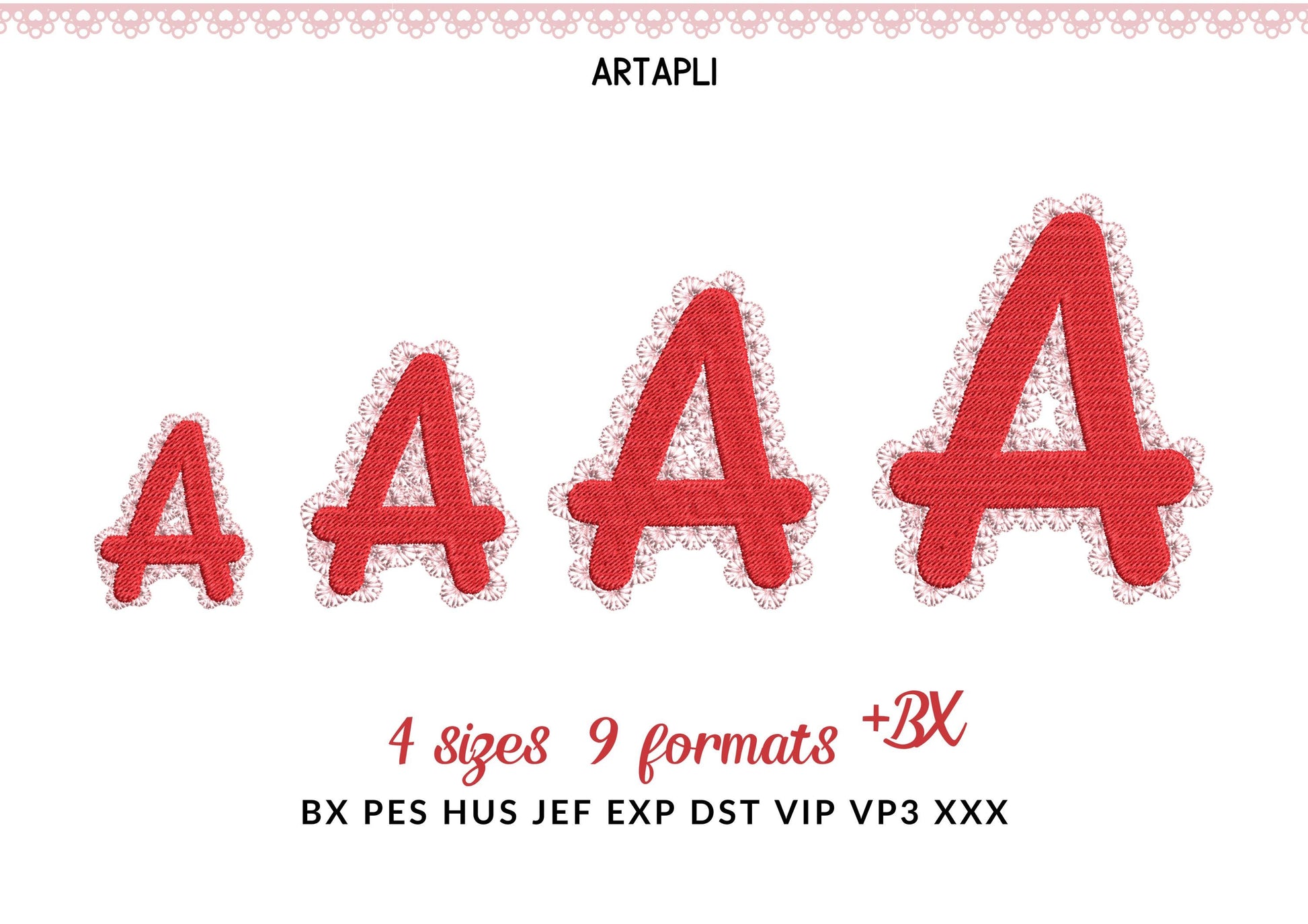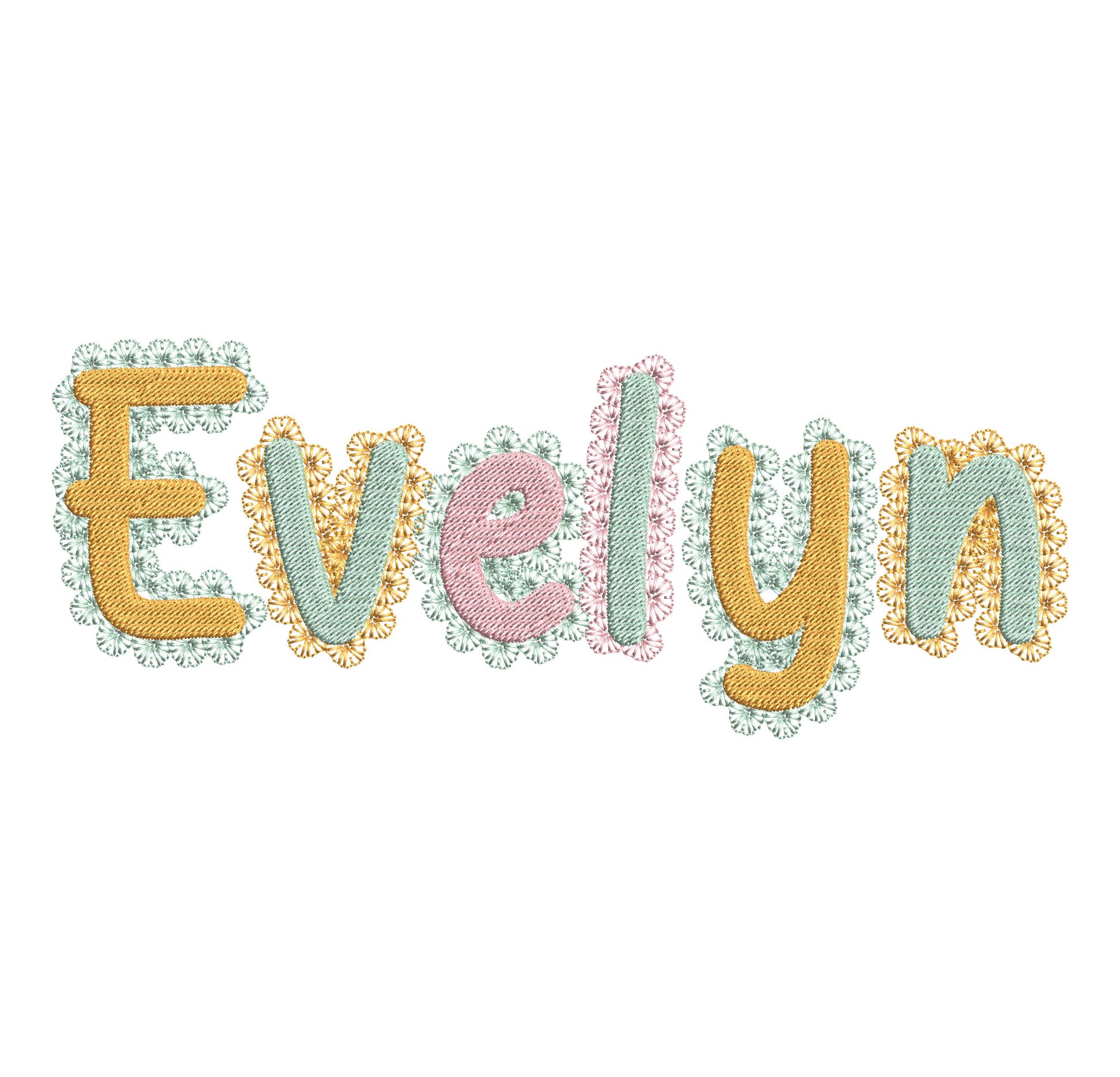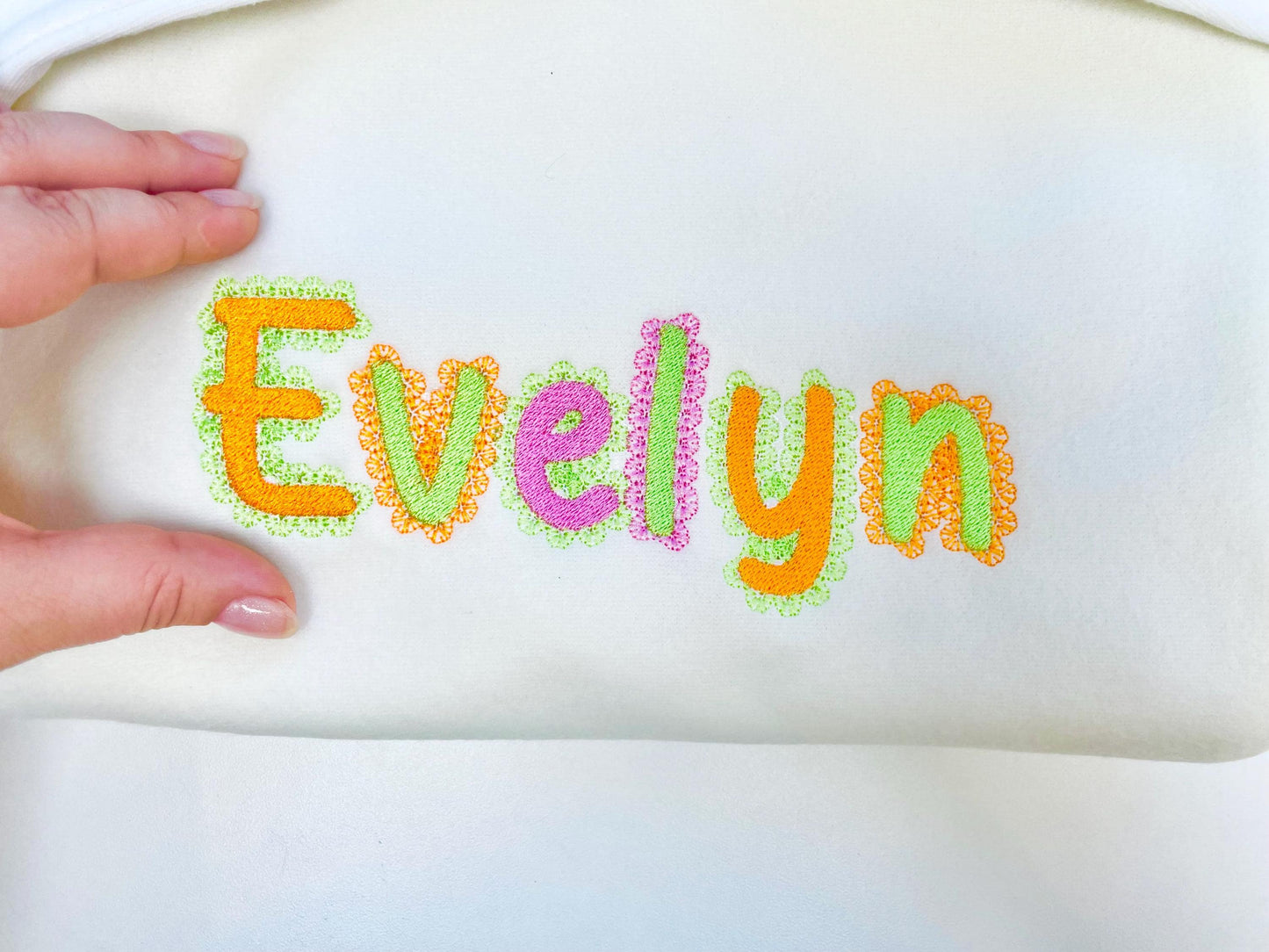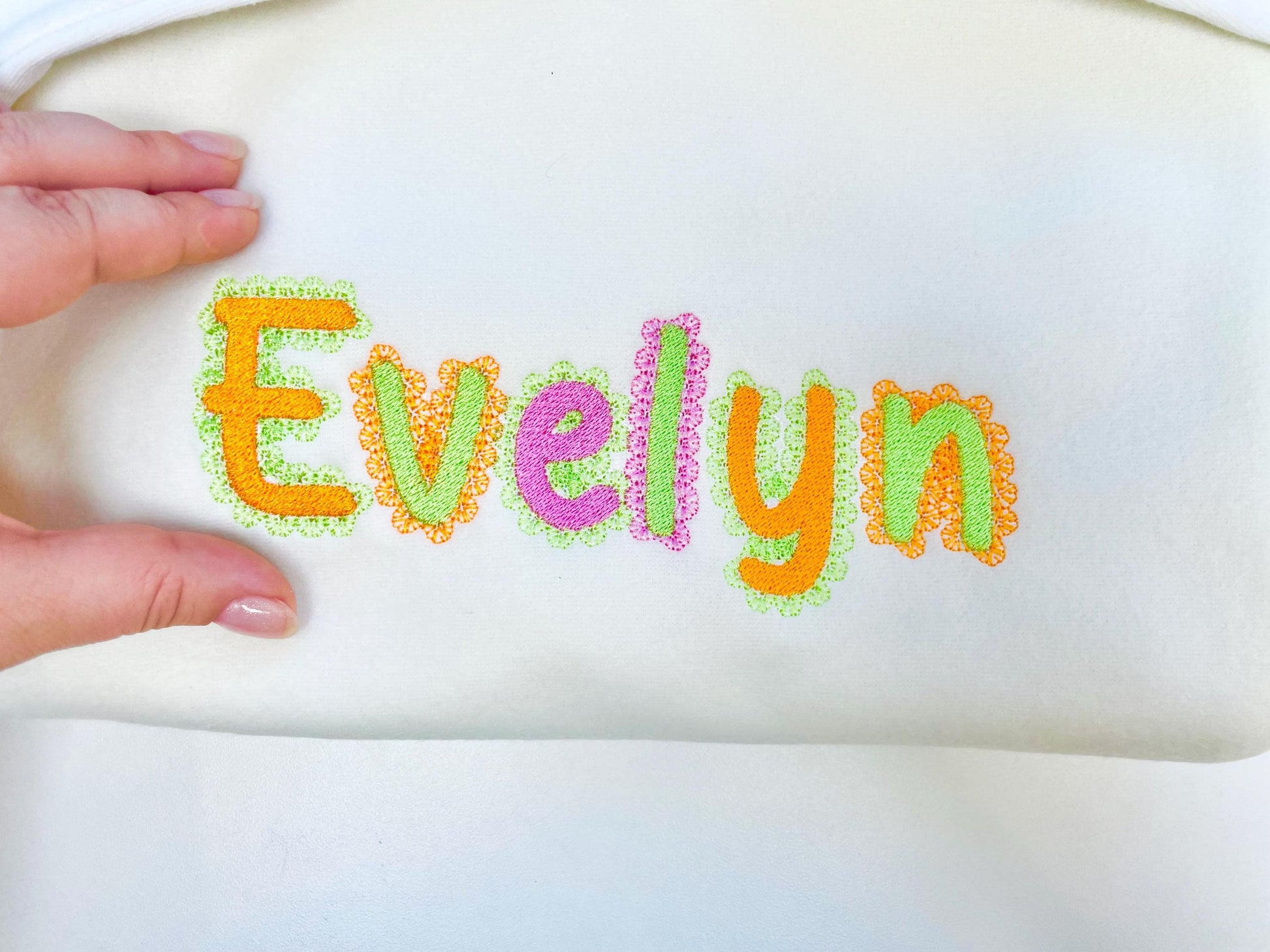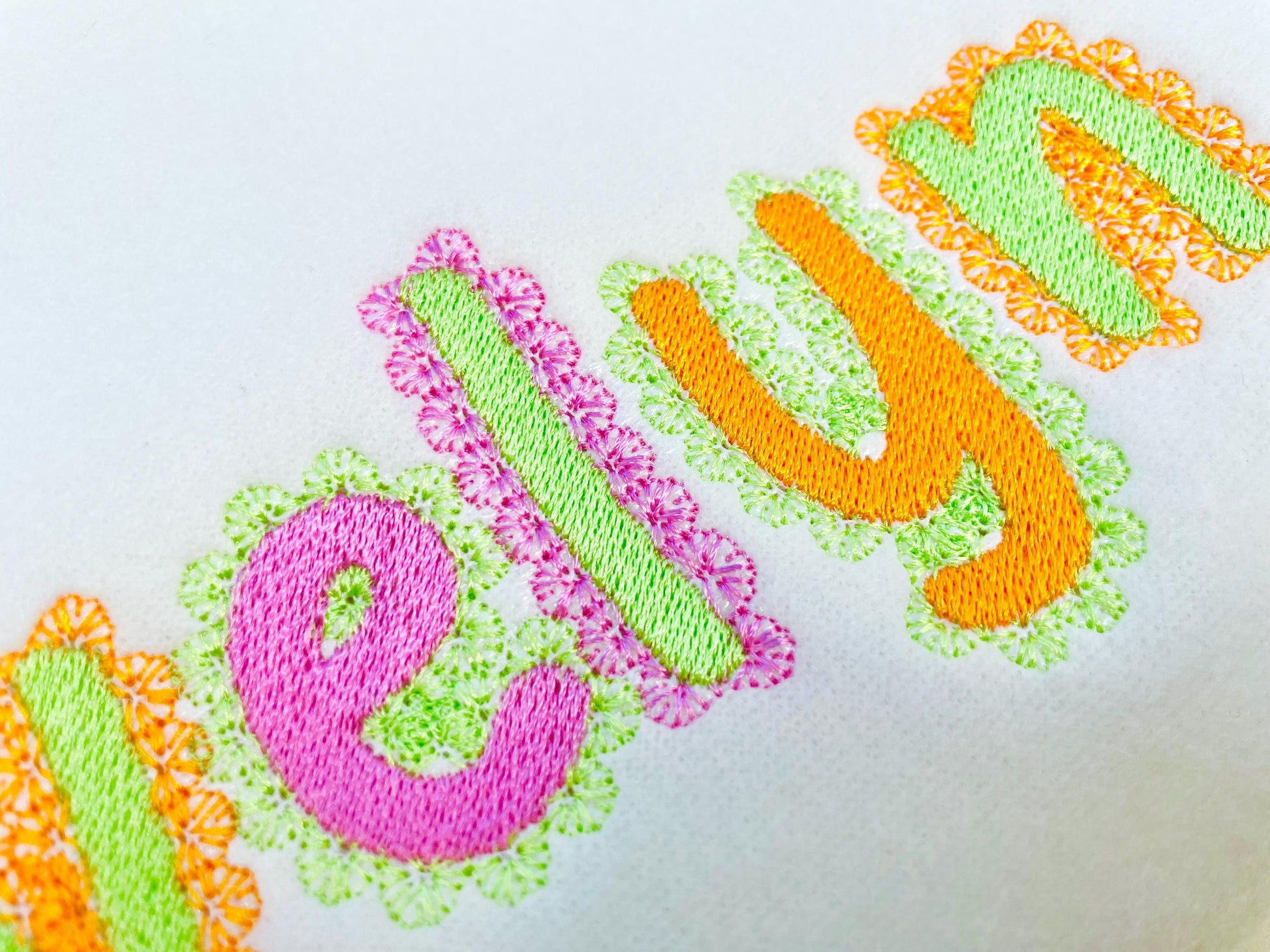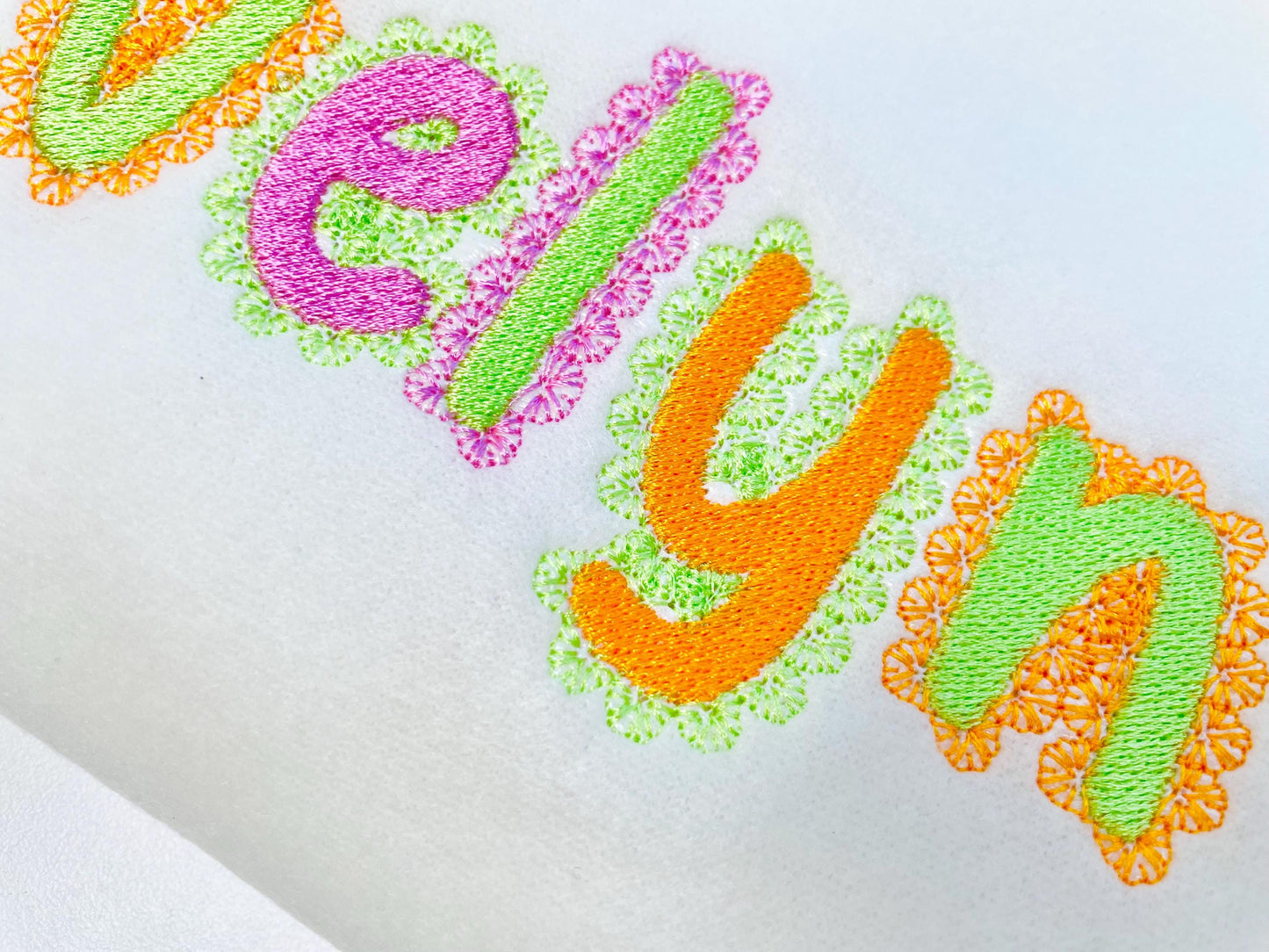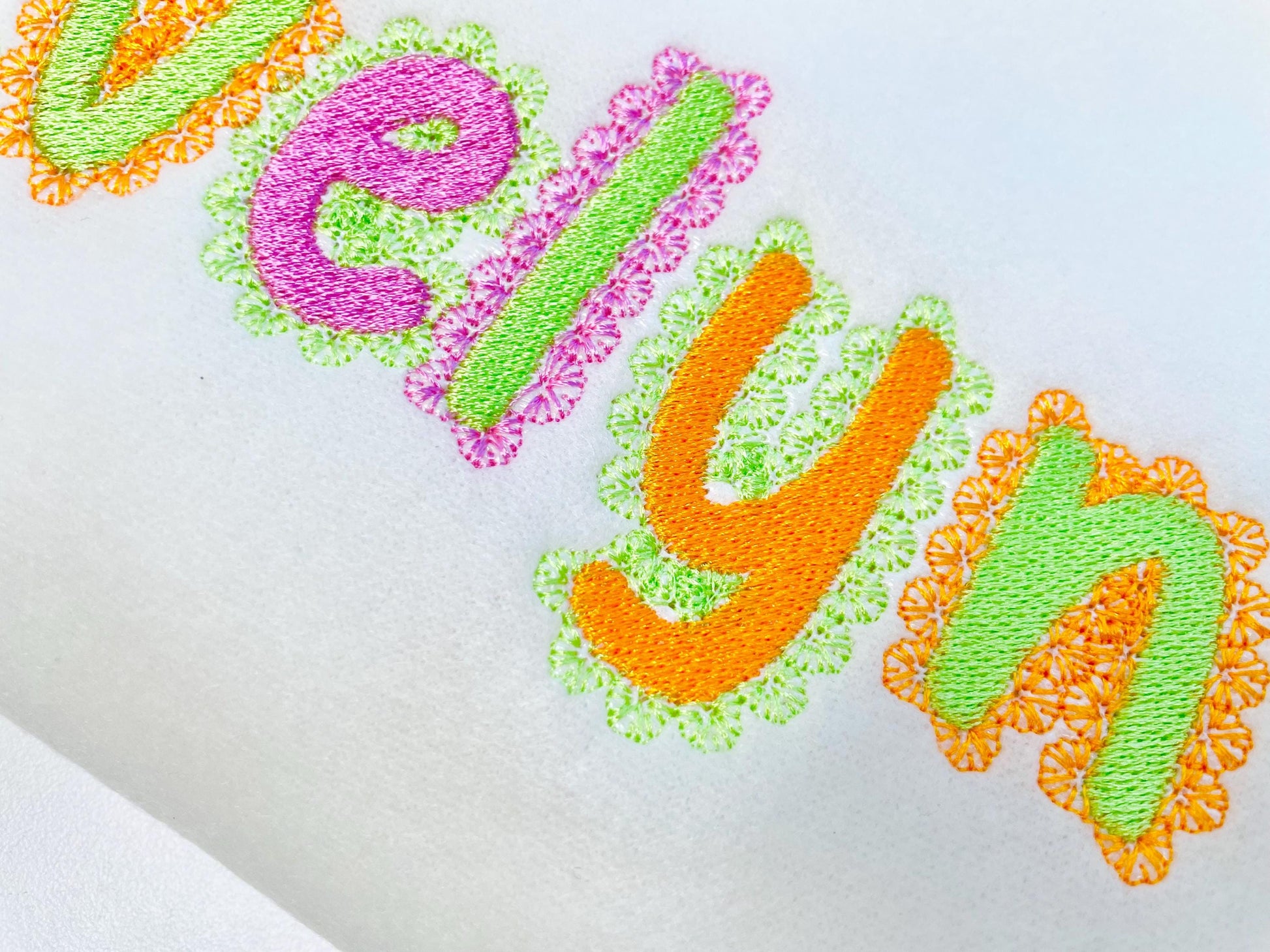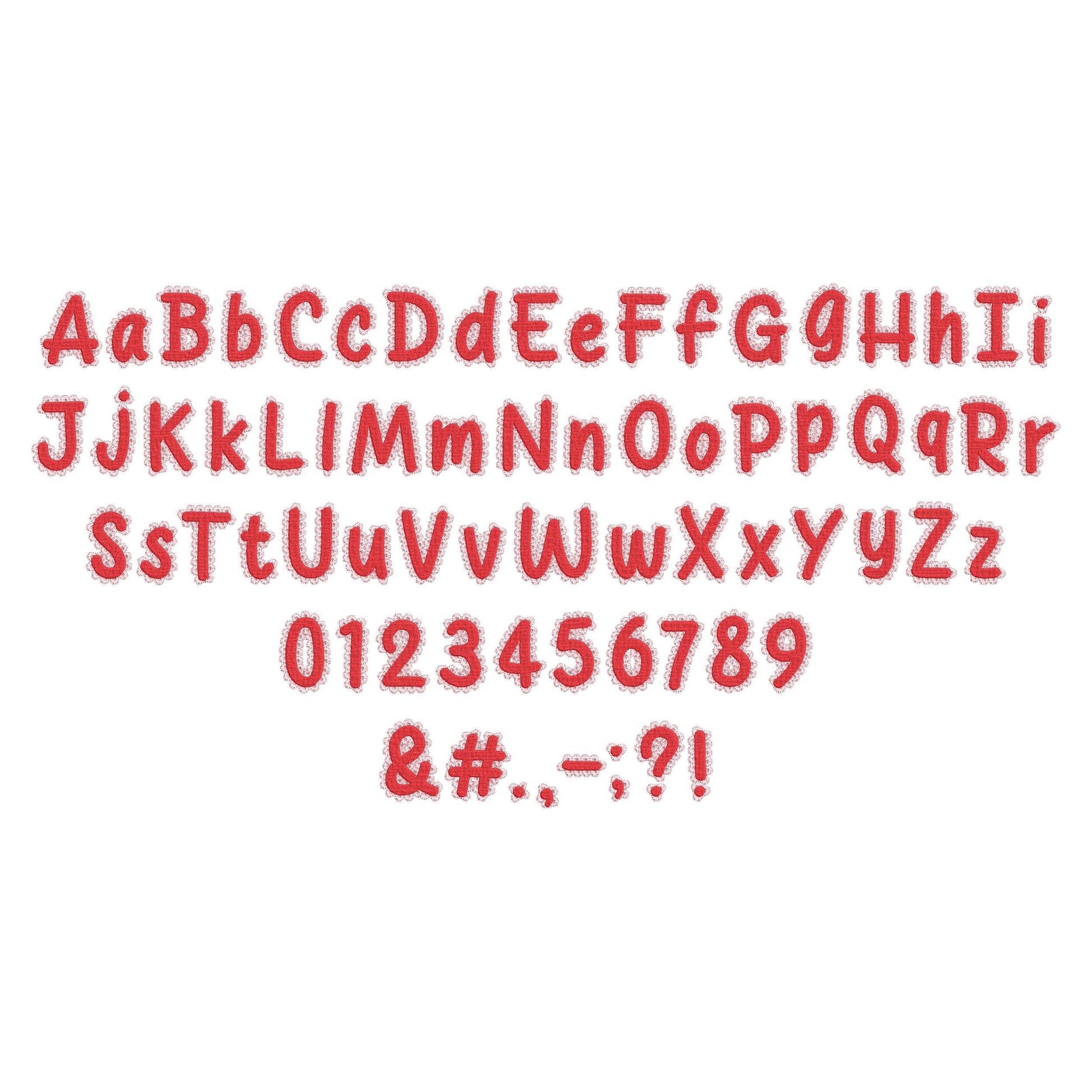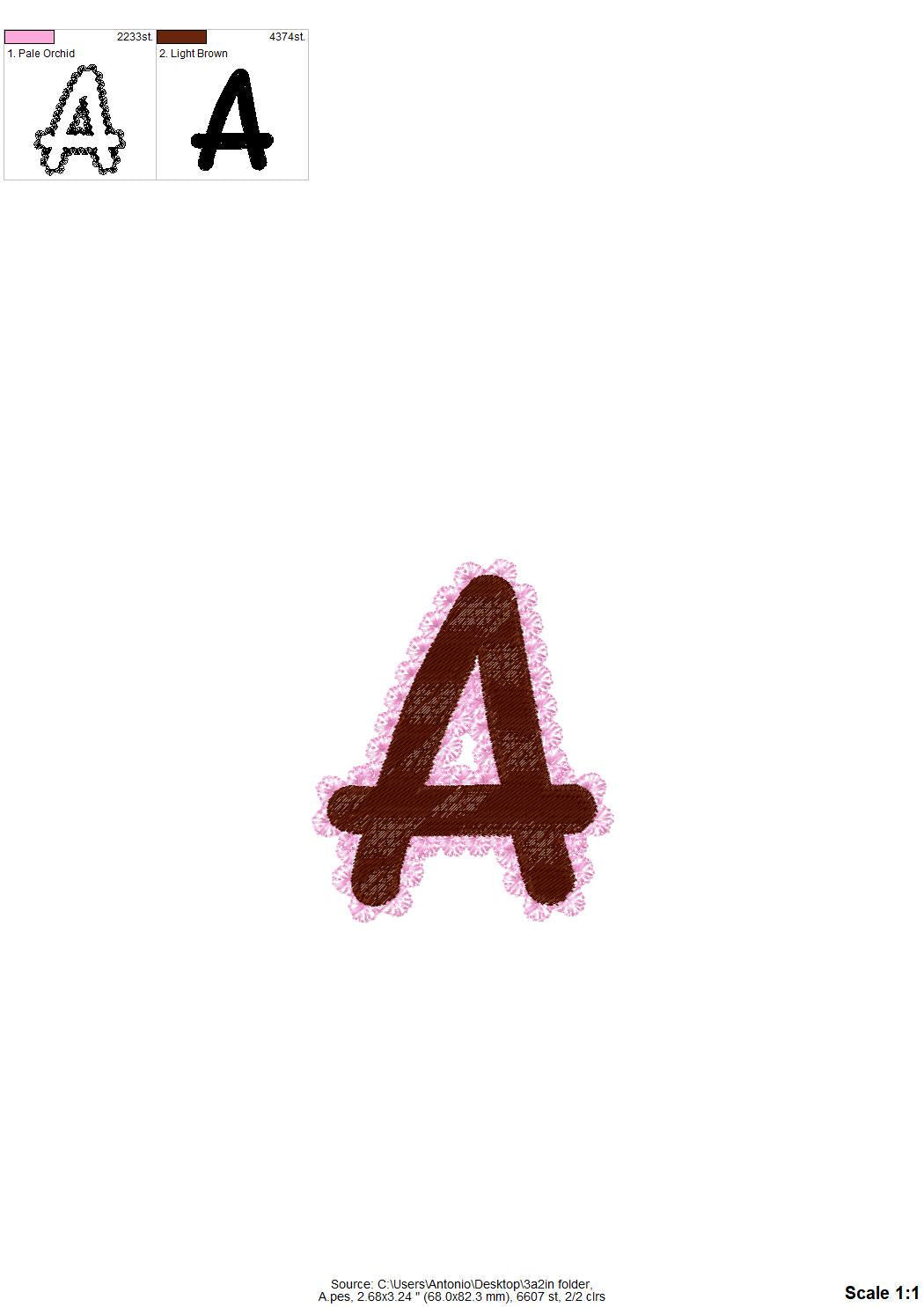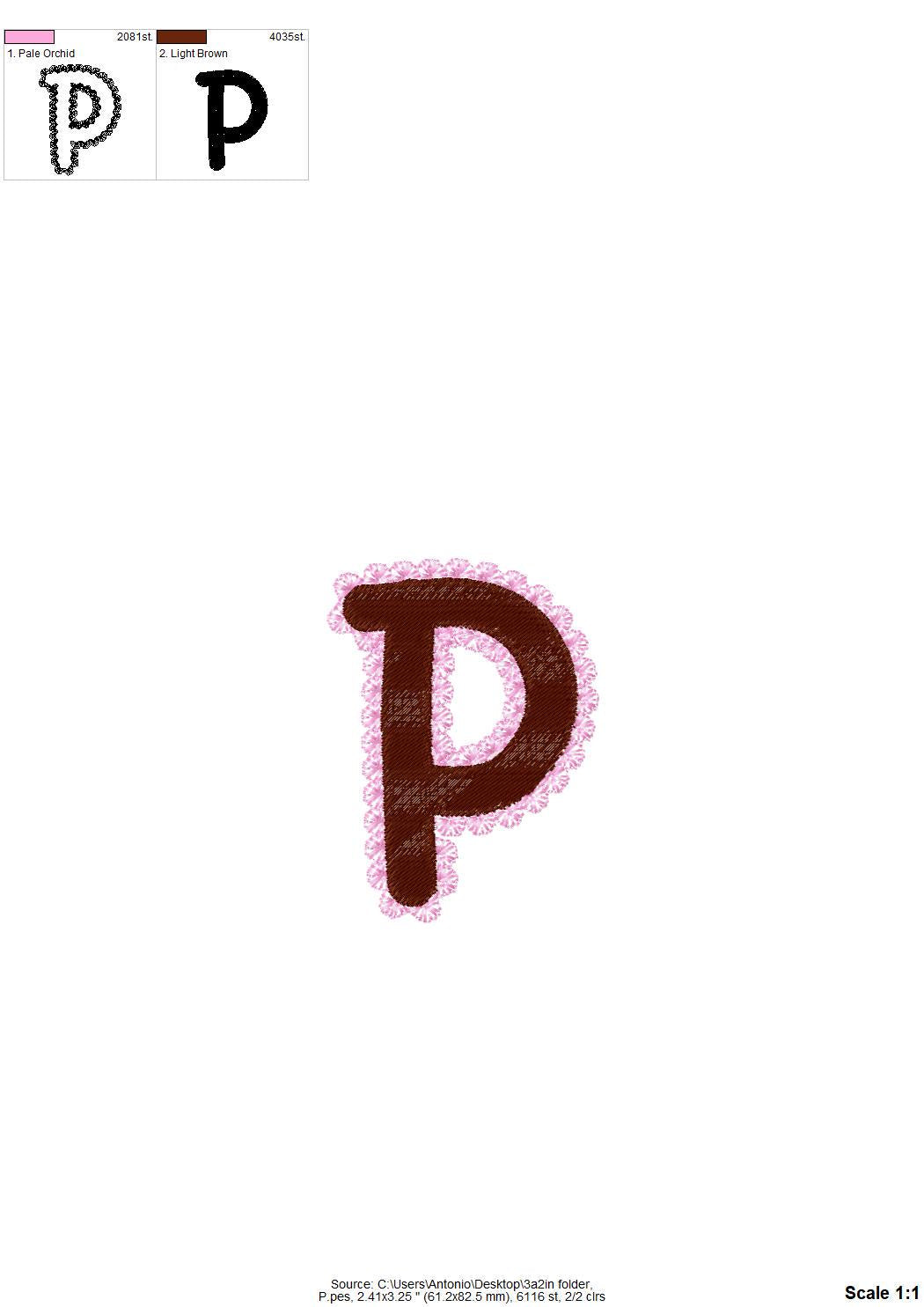
Or click to open the linkA fancy fill stitch font with a lace edge. Cute for baby girls' names, monograms, bibs and gifts.
Uppercase and lowercase letters, numbers 0 to 9 and lots of punctuation, in four sizes: 1.5, 2, 2.7 and 3.2 inches. The lace edge is part of the stitching.